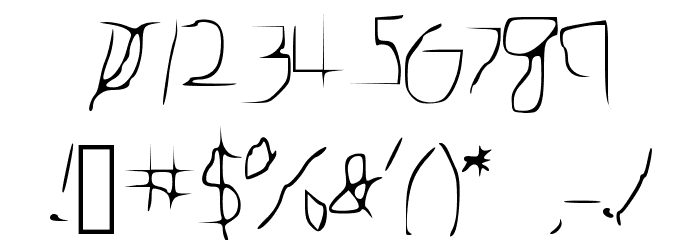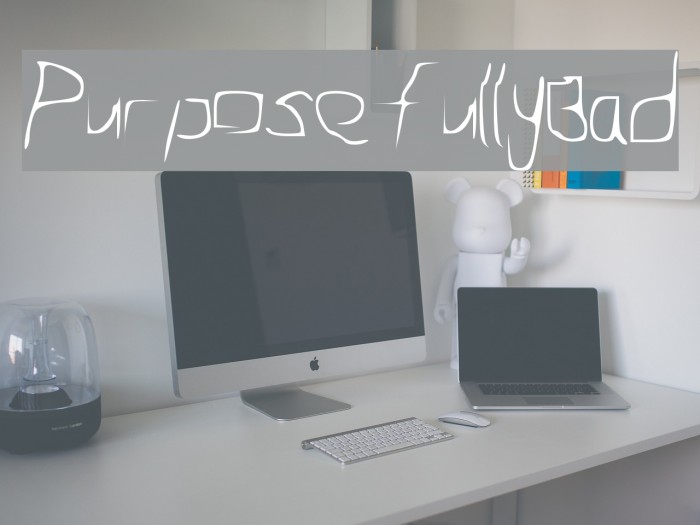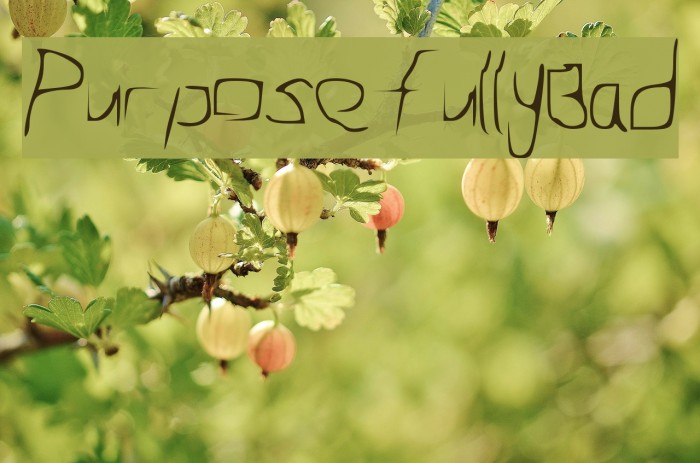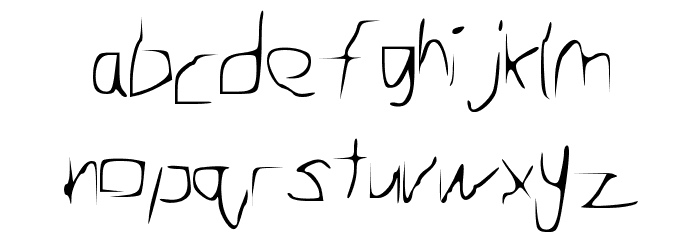
PurposefullyBad Font
PurposefullyBad Description
This font features a highly irregular and abstract design, characterized by its jagged and erratic strokes. The letters appear to be hand-drawn with a sense of spontaneity, giving them a chaotic and unpredictable appearance. The uppercase and lowercase letters maintain a consistent style, with sharp angles and uneven lines that create a sense of movement and energy. The numbers and special characters follow the same aesthetic, adding to the overall unconventional look. This font's unique style makes it stand out, offering a distinct visual impact that is both artistic and avant-garde.
An abstract, jagged font with erratic strokes and a hand-drawn appearance from Uncategorized fonts.
- Proposed Projects: Ideal for artistic projects, album covers, experimental design work, or any creative endeavor seeking a bold and unconventional look.
- Character Spacing: Wide
- Overall Style: Avant-garde
- Use Case: Logos, Posters, Artistic Projects